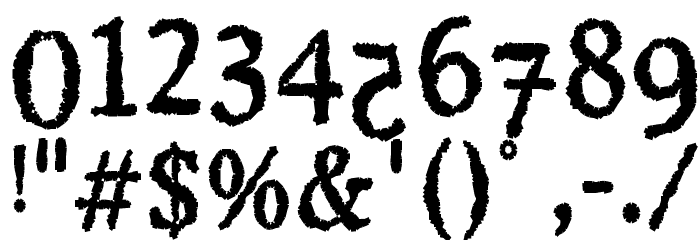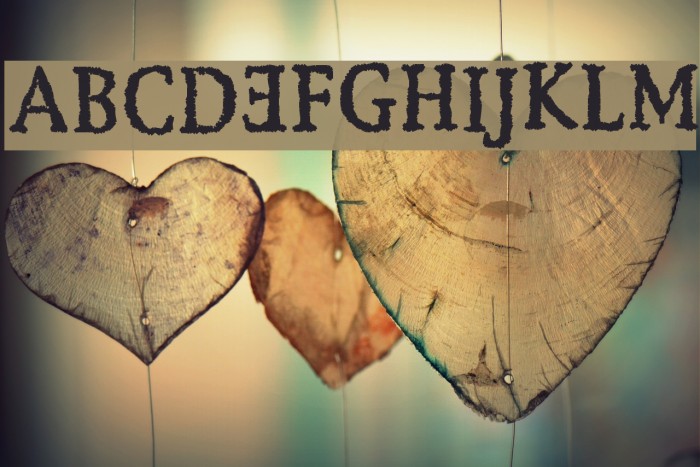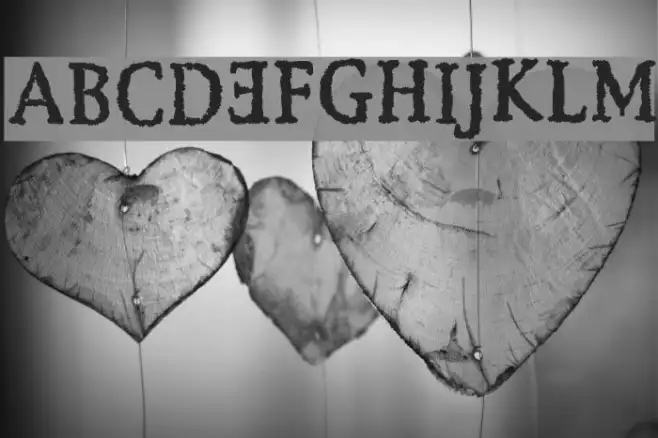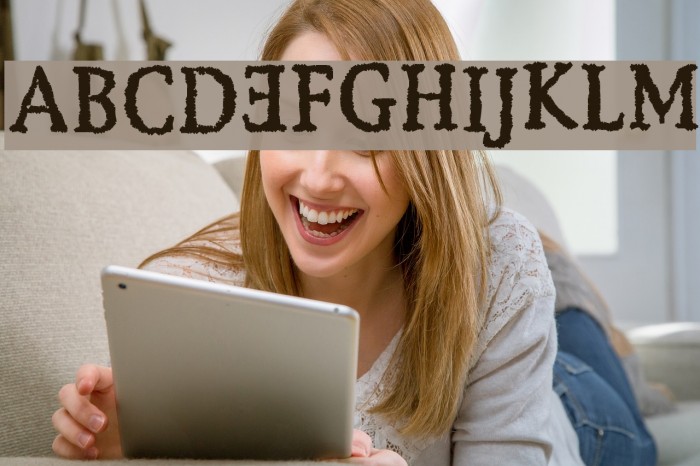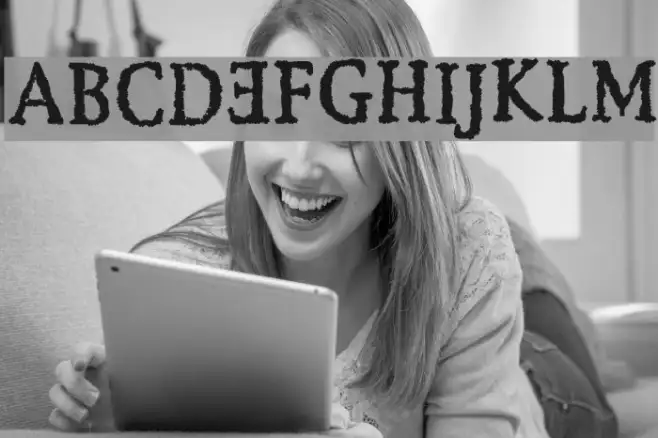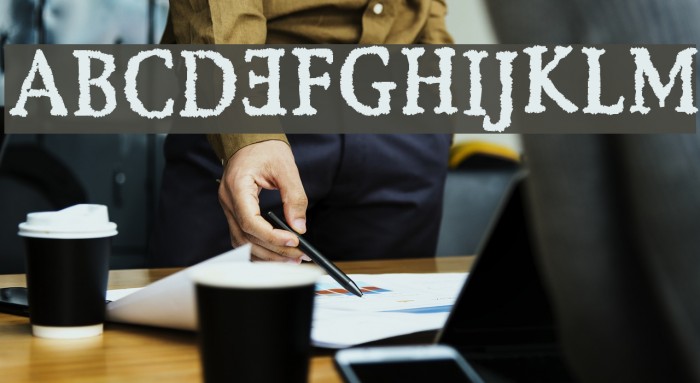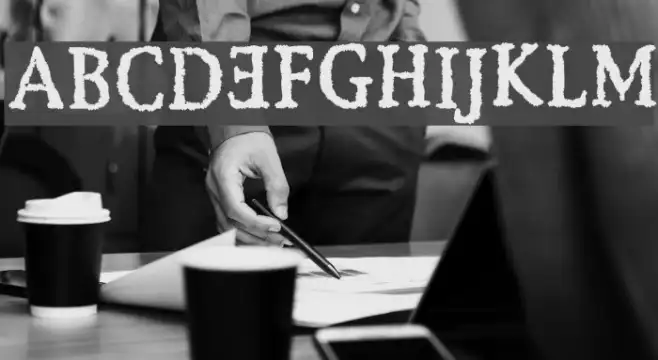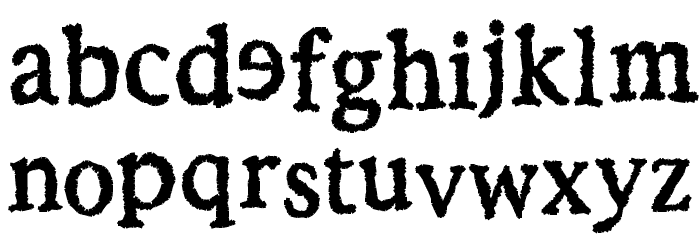
Ebola Kikwit Font
This font features a distressed, textured appearance that gives it a rugged and organic feel. The characters are bold and slightly irregular, with rough edges that suggest a hand-crafted or vintage printing style. The uppercase and lowercase letters maintain a consistent height, while the numerals and special characters follow the same textured theme. This font's unique style makes it stand out, offering a sense of authenticity and character. It is ideal for projects that require a touch of nostalgia or a handmade aesthetic.
A distressed, textured font with a rugged, vintage feel.
• Proposed Projects: Perfect for vintage posters, rustic branding, handmade product labels, and artistic book covers.
• Category: Decorative/Display
• Overall Style: Vintage
• Use Case: Logos, Headlines, Posters